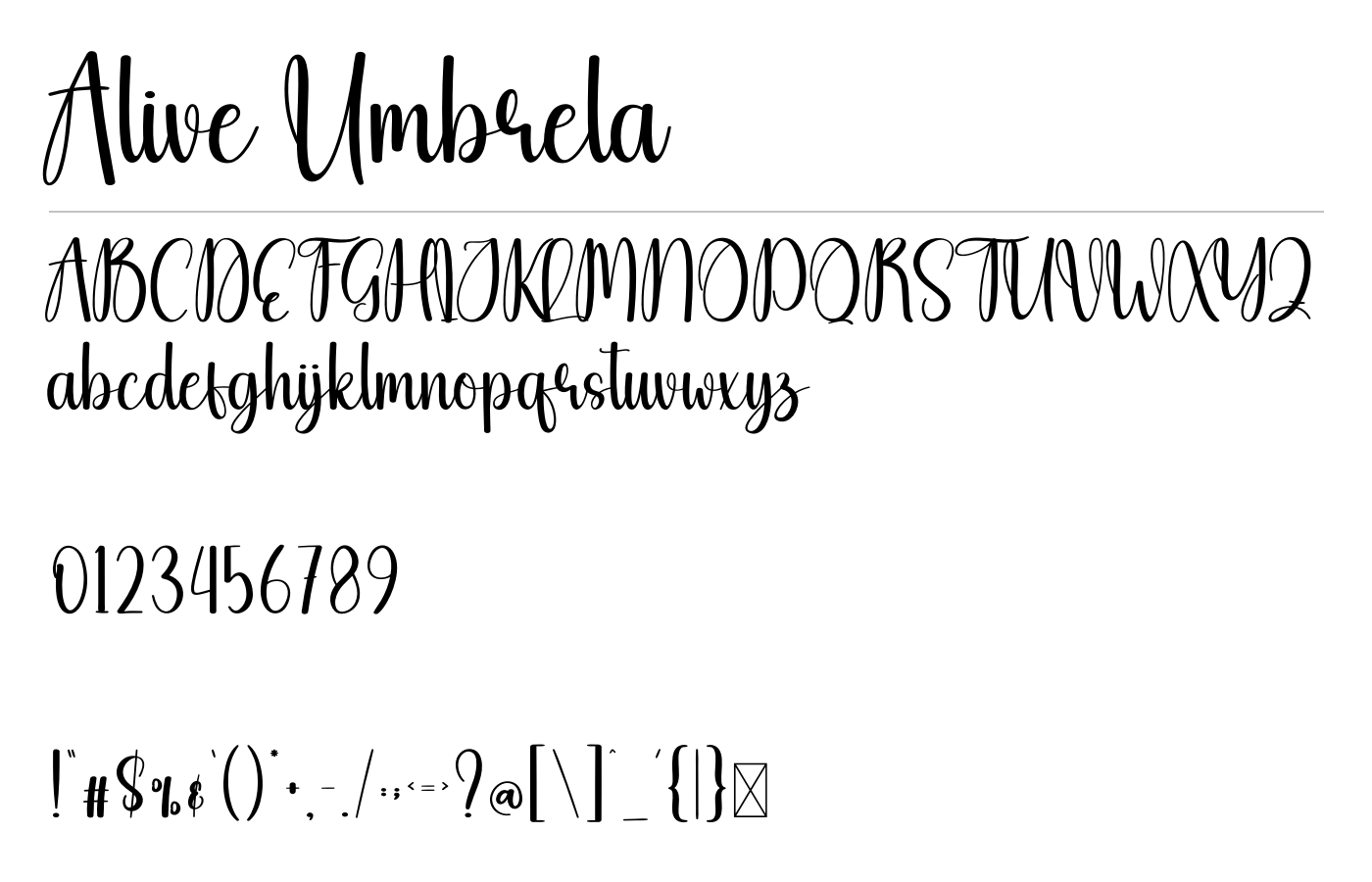
Alive Umbrela is a playful and elegant handwritten script font with a tall, narrow structure and smooth, flowing strokes. Its light weight and delicate curves give it a graceful, friendly feel, making it ideal for creative branding, invitations, and feminine design projects that want a personal, charming touch. This font works beautifully for headlines and decorative uses where a distinctive, artistic style is desired.
Alive Umbrela Font